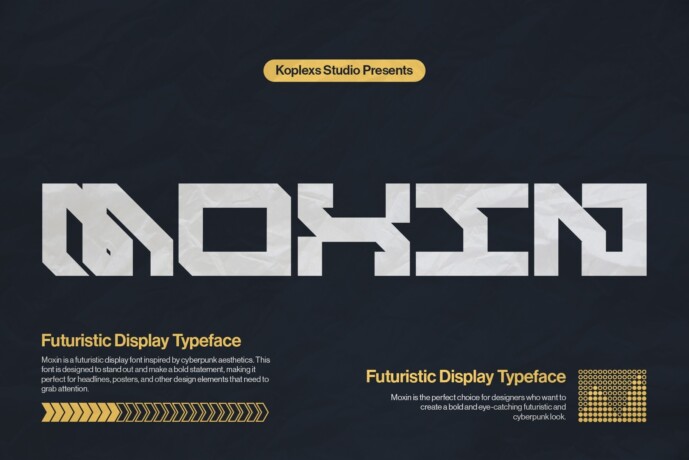
Moxin Font
Designer: Koplexs Studio
Moxin is a sleek futuristic font perfect for tech, gaming, and sci-fi designs. Its clean geometric shapes and modern aesthetic make it ideal for logos, branding, posters, and digital projects.
Moxin includes uppercase characters, numbers, punctuation, and multilingual support, making it versatile and ready for any creative endeavor. Add a cutting-edge touch to your designs with Moxin!